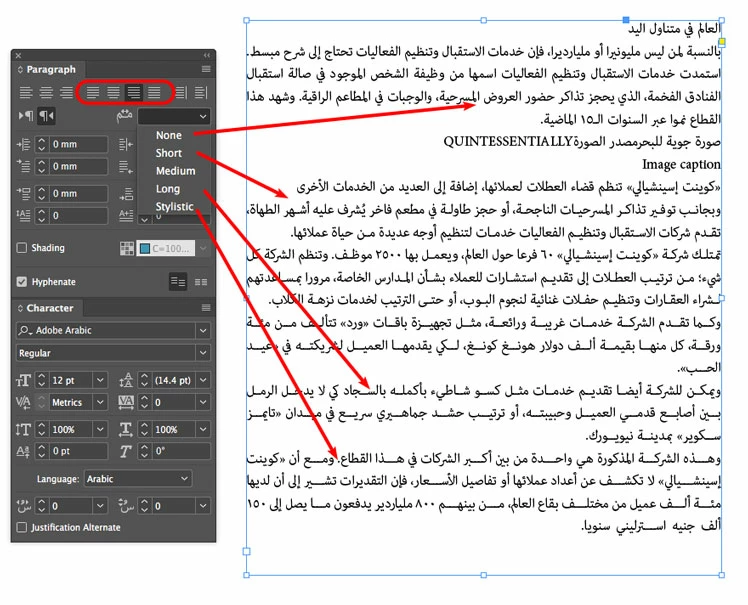
Kerning Arabic font
im trying to change keenin in Arabic font . And apply it through paragraph style on all the text. Is there any way to do that ?
It works when I'm trying to manually change the kernin but it's not applying on thr text .
Although you can manually kern individual pairs of letters and specify “tracking” (global amount of spacing between letters) to a particular style, there is no way in InDesign to specify and save global overrides for any font's own kerning table.
If you believe that a particular font has very poor kerning tables, one thing you might try is the automatic kerning option which applies kerning based on the letterform shapes. It works fairly well with Western Latin alphabets, but I don't know how it might work with Arabic.
Since Arabic script is similar to Cursive in Latin languages, you don't have to adjust Kerning or Tracking that often, we rather adjust Kashida that joins characters together within single word.
Try this option instead of Kerning or Tracking… In Paragraph Panel, you need to first select one of the line justification atop of the panel. Then play with "Insert Kashida" options [ None • Short • Medium • Long • Stylistic ] to see which of them suits your job.
Hi, why I can't find the "insert kashida" option? I try to change the language and everything to arabic already but still cant see the option/setting. I am using Illustrator 2020
Although you can manually kern individual pairs of letters and specify “tracking” (global amount of spacing between letters) to a particular style, there is no way in InDesign to specify and save global overrides for any font's own kerning table.
If you believe that a particular font has very poor kerning tables, one thing you might try is the automatic kerning option which applies kerning based on the letterform shapes. It works fairly well with Western Latin alphabets, but I don't know how it might work with Arabic.
* trying to kerning the font and apply it using paragraph style on the text .